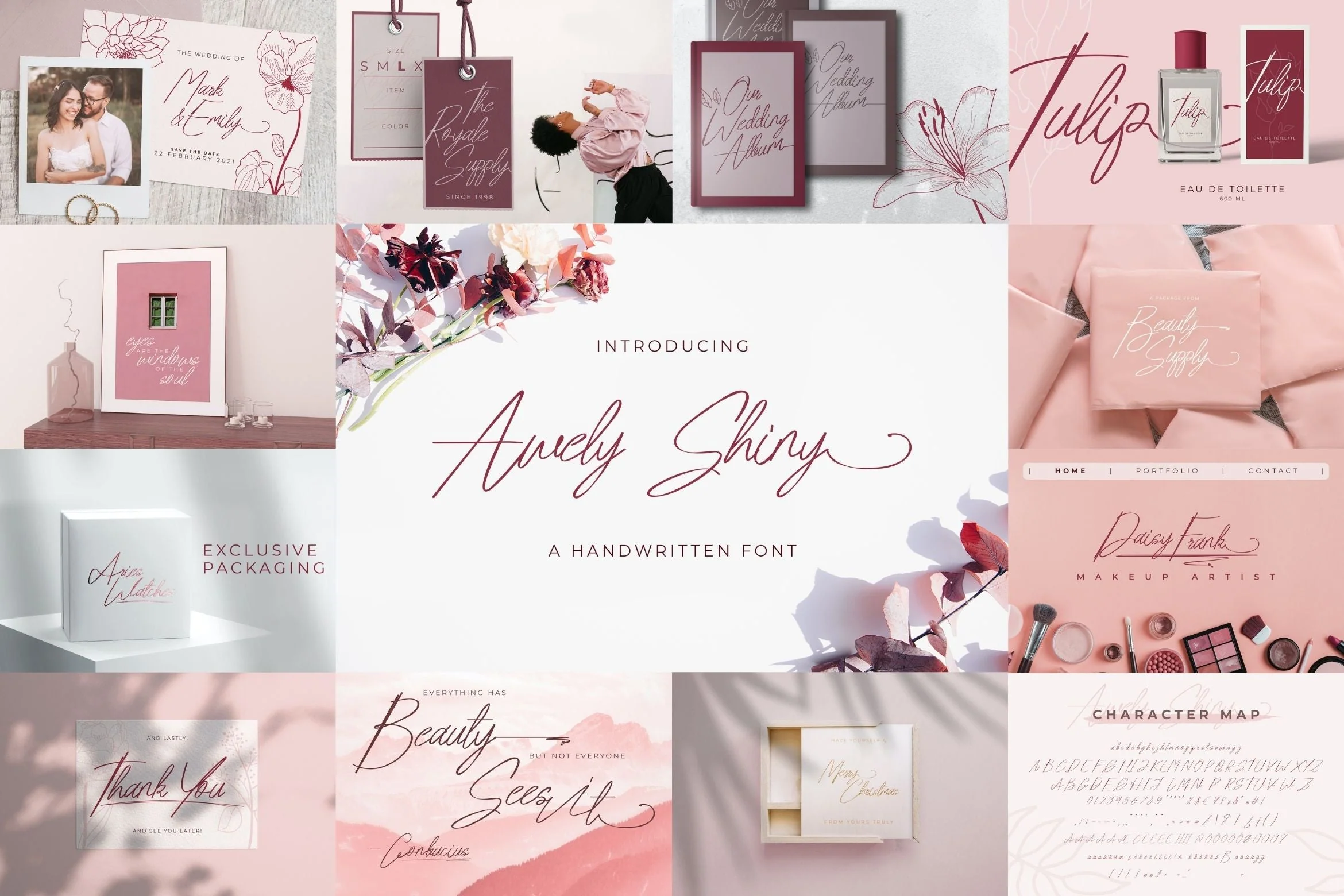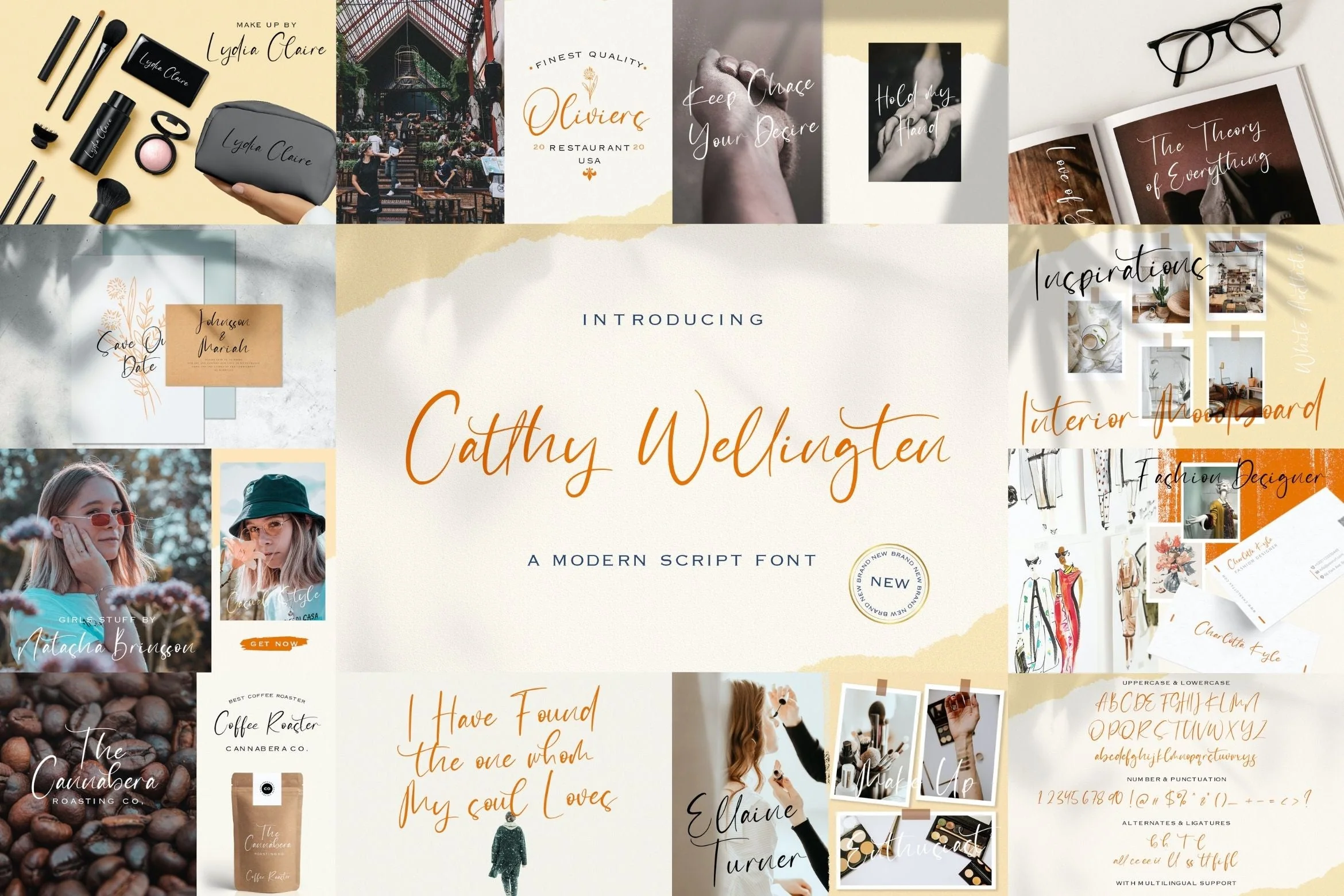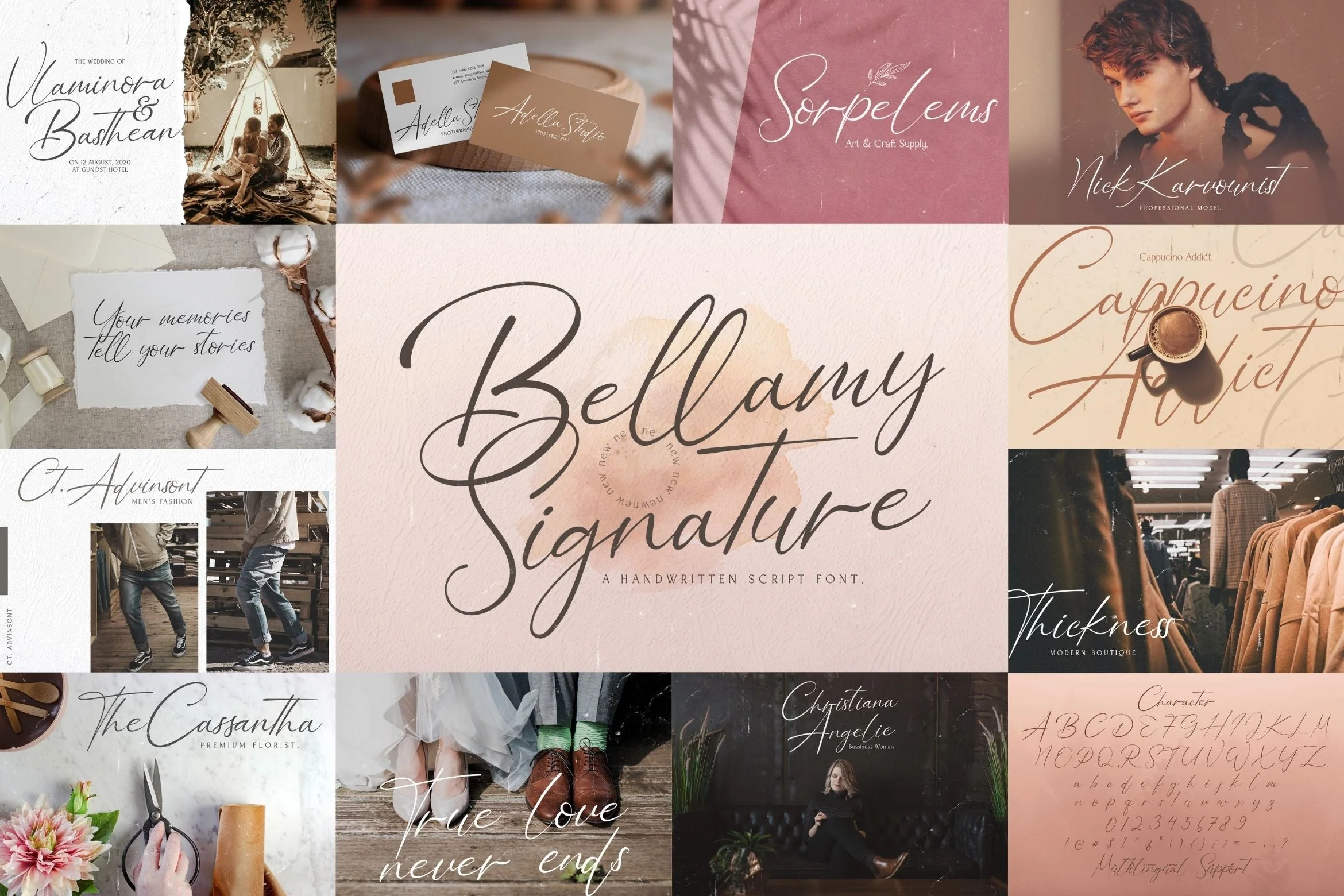
Handwritten Font Bundle Vol 13 is a delicate, elegant and flowing handwritten font. This font bundle contains 8 high quality handwritting script font, it will look simply magical in a wide range of design projects, and also that will look particularly adept when used in logos, branding, packaging design, and much more. It has beautiful and well balanced characters and as a result, it matches a wide pool of designs. Add it to your most creative ideas and notice how it makes them come alive!
1. Bellamy Signature
2. Ajuslly
3. Walytime
4. Amelliz
5. Marvelous Photograph
6. Catthy Wellingten
7. Brittany Angella
8. Awely Shiny